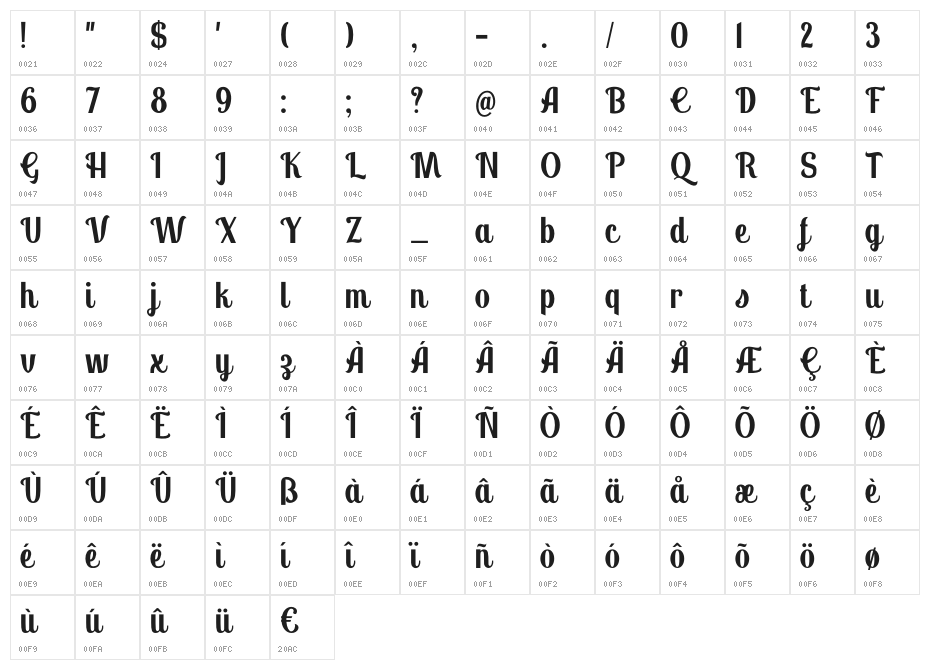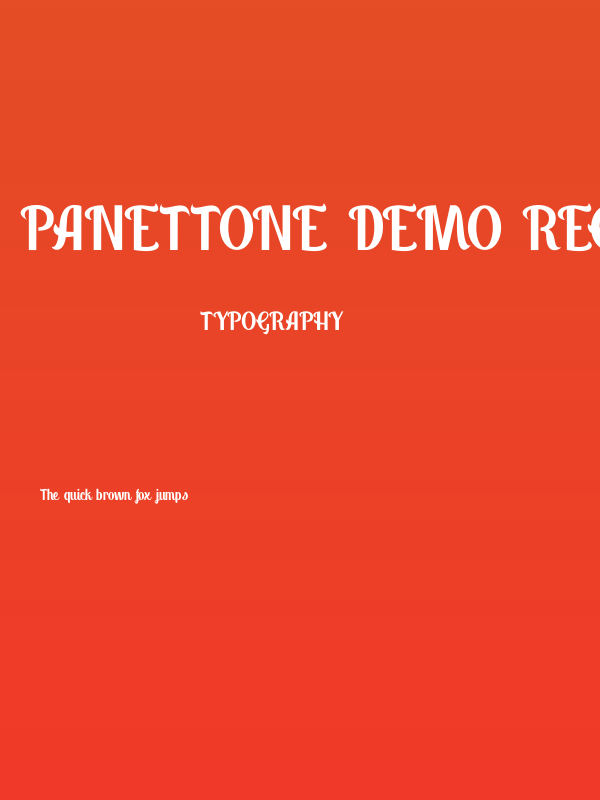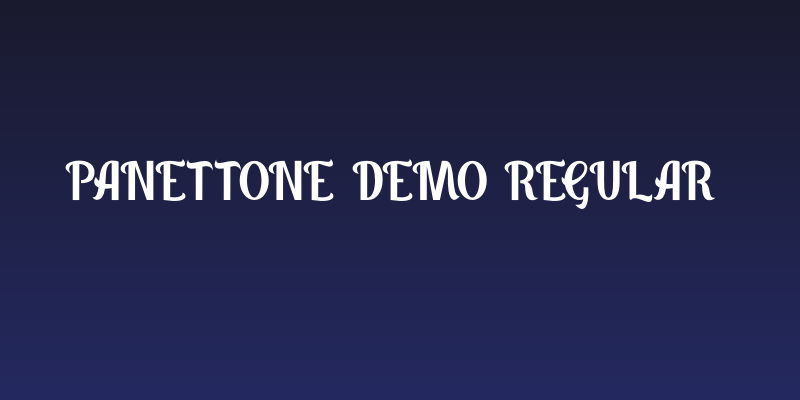
Panettone DEMO Regular Font
Panettone DEMO Regular Description
This font features a bold and decorative style with a playful yet sophisticated flair. The uppercase letters exhibit a unique blend of curves and sharp edges, creating a dynamic and eye-catching appearance. The lowercase letters maintain a consistent style, with some characters displaying distinctive loops and swashes that add to the overall charm. The numbers are bold and clear, ensuring readability while maintaining the font's decorative essence. Special characters are designed to complement the overall aesthetic, making this font suitable for a variety of creative applications.